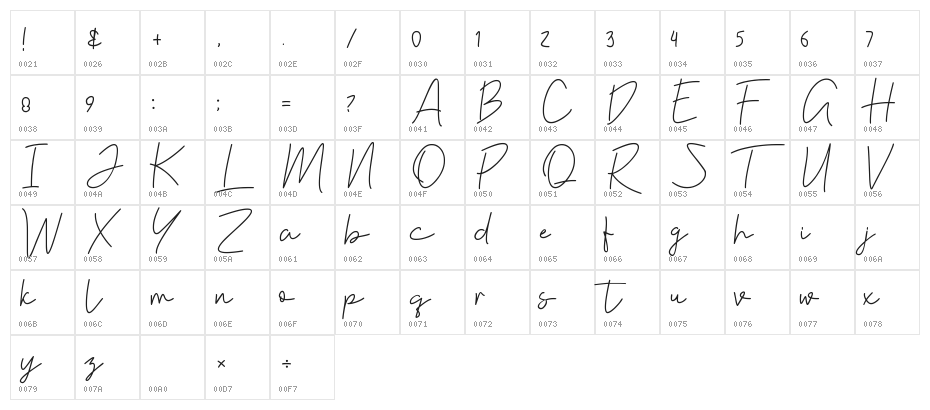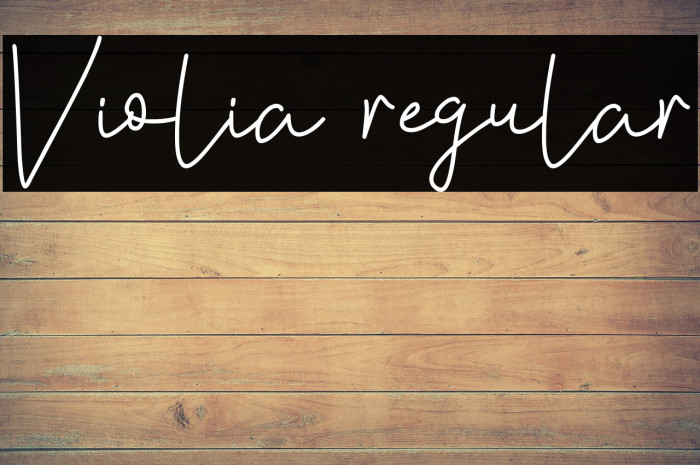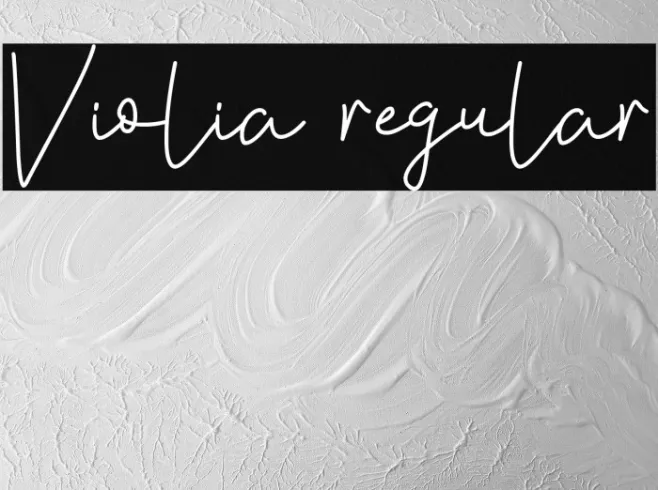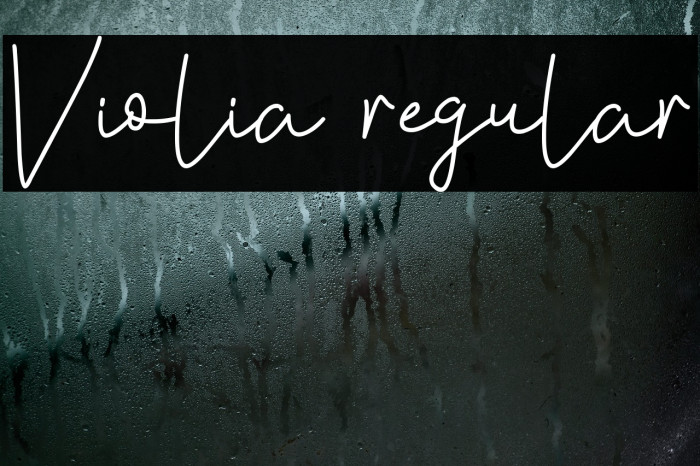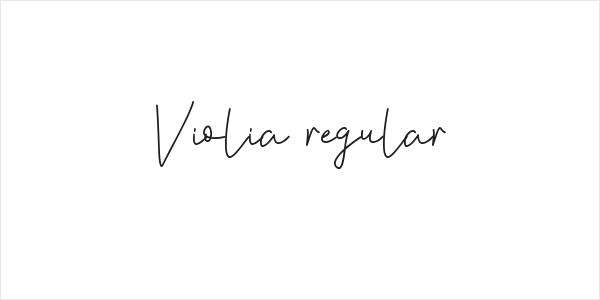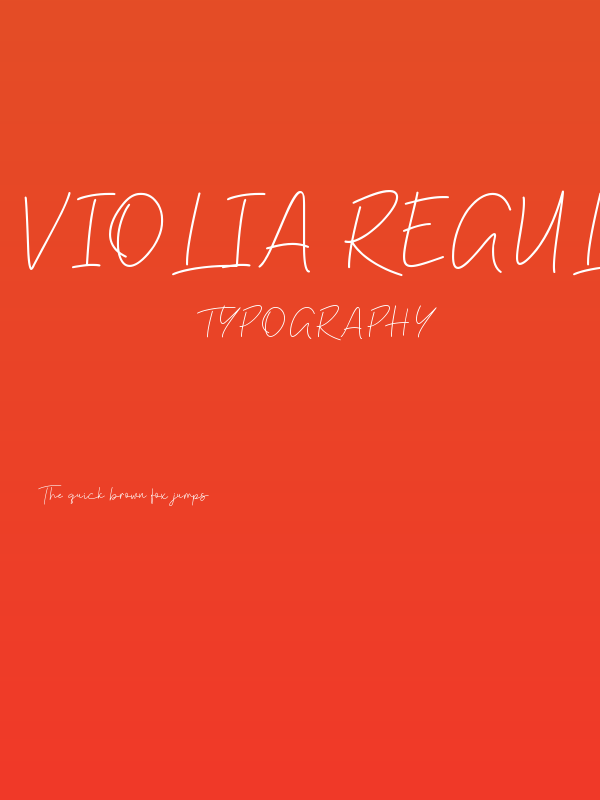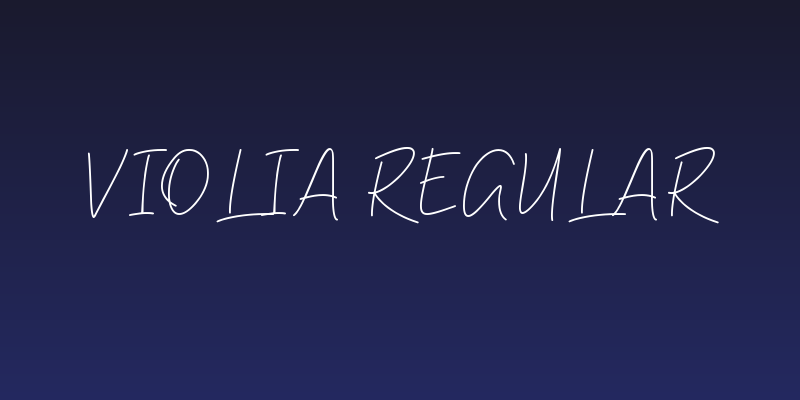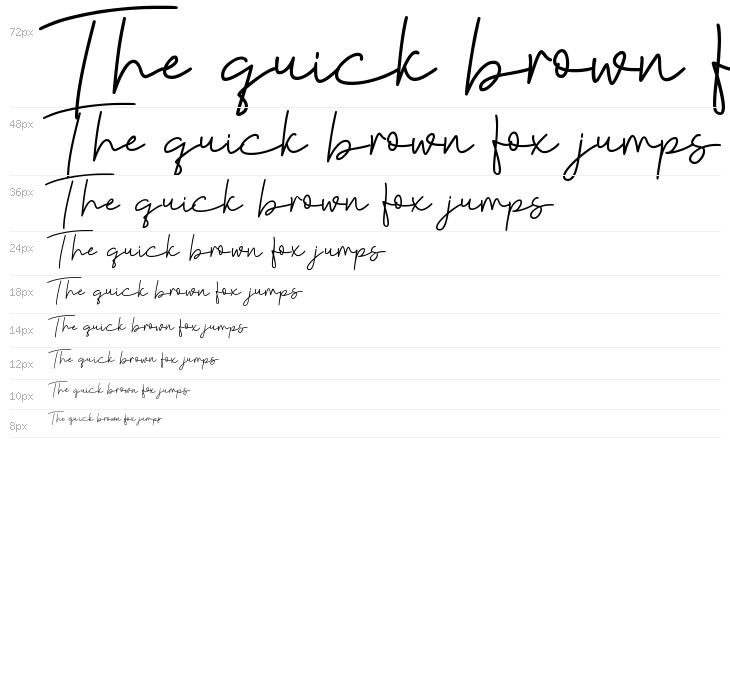
Violia regular Font
Violia regular Description
This font exudes a casual yet elegant handwritten style, characterized by its fluid and natural strokes. The uppercase letters maintain a consistent height, with a slight slant that adds a dynamic feel. The lowercase letters are more varied in height, with some letters extending below the baseline, enhancing the handwritten aesthetic. The numerals are consistent with the overall style, maintaining the same fluidity and casual elegance. Special characters are integrated seamlessly, complementing the alphabet with their own unique flair. This font is perfect for projects that require a personal touch, such as invitations, greeting cards, or any design that benefits from a handwritten appearance.
| Overall Style | Casual, Elegant |
| Proposed Projects | Ideal for invitations, greeting cards, personal branding, and creative projects requiring a personal touch. |